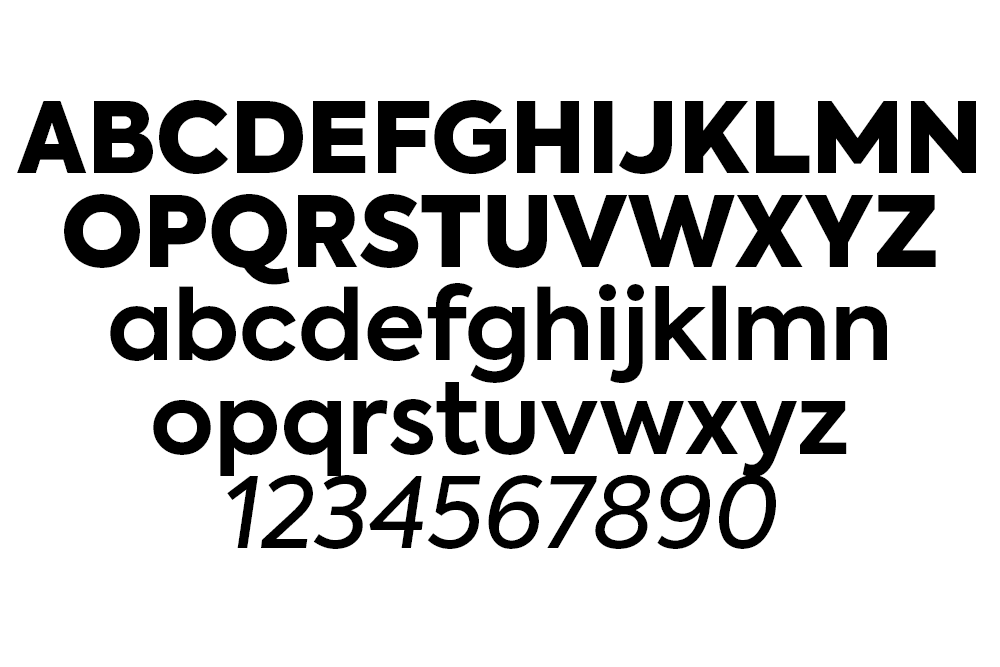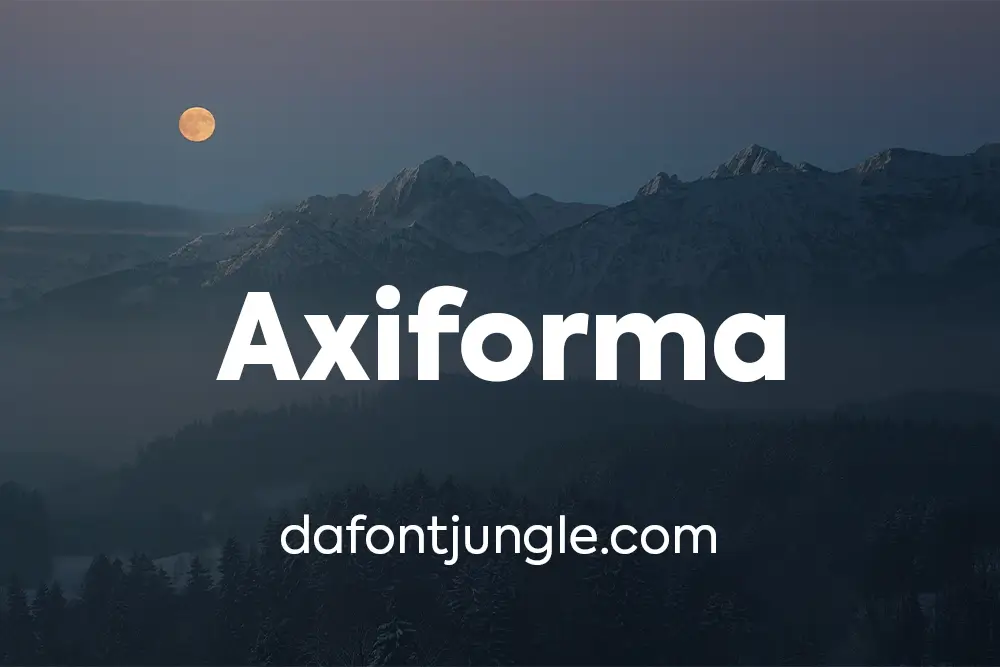
Axiforma – Clean Geometric Sans Font
Axiforma is a geometric sans-serif font with a modern and clean design. It includes 20 different styles, from Thin to Black. This makes it perfect for a wide range of projects, including branding, posters, websites, and presentations.
Each letter is crafted with care to keep your design sharp and professional. Axiforma supports many OpenType features such as old-style numbers, fractions, stylistic sets, and case-sensitive forms. It also includes Cyrillic support for Russian and Bulgarian.
Whether you’re working on print or digital designs, Axiforma gives you strong, clear type that grabs attention.